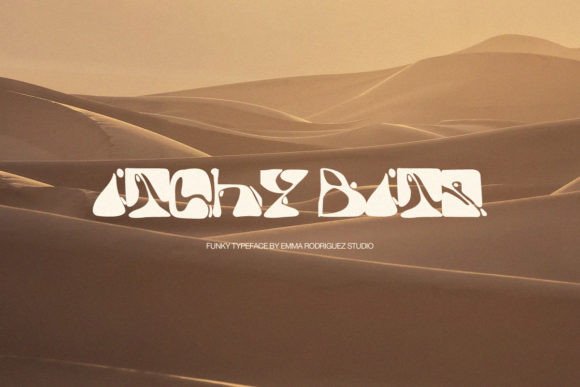
Journey back to the era of rock 'n' roll, poodle skirts, and classic cars with Itchy Bits, the captivating display font that oozes retro charm. Inspired by the golden age of design, this font is a delightful blend of playful boldness and timeless elegance, guaranteed to infuse your projects with a touch of nostalgia.
With its exaggerated curves and angles, Itchy Bits is a visual treat that demands attention. The thick and thin strokes create a hand-drawn feel, reminiscent of vintage signage and advertisements. Each letter is adorned with unique embellishments, from swashes and dots to dashes, adding a playful touch that captures the essence of the retro era.
Itchy Bits is not just a font; it's a gateway to a bygone era, where vibrant colors and bold designs reigned supreme. Unleash your creativity and let Itchy Bits transport you to a world of milkshakes, drive-in movies, and sock hops.
Whether you're designing posters, logos, social media graphics, or invitations, Itchy Bits is the perfect choice for adding a touch of retro flair. Its versatility knows no bounds, making it a must-have for designers seeking to create eye-catching and memorable designs.
Embrace the nostalgia and let Itchy Bits take you on a journey through time. Dive into the world of classic design and create projects that exude charm, individuality, and a hint of playfulness.